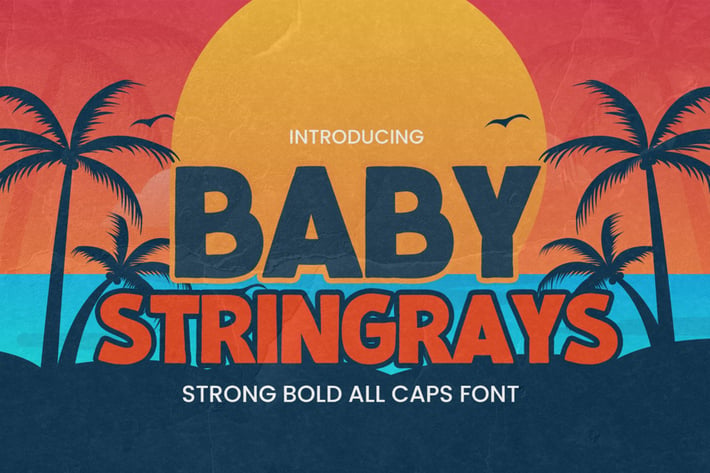
Baby Stringrays - Strong Bold All Caps Font
Introducing our latest display typeface called Baby Stingrays - Strong Bold All Caps Font Display Vintage Serif with can make your logotype become more interesting. Best Vintage font and multilingual support. inspired by the decorative arts and architecture movement
Baby Stingrays fonts is perfect for your project and allows you to create designs, headlines, posters, logos, badges and many more that are beautiful. It is also best used for posts, logos, posters, certificates, labels and more.
It’s perfect for labels, quotes, DIY projects, branding, packaging, greeting cards, websites, photography overlays, signs,and window art,